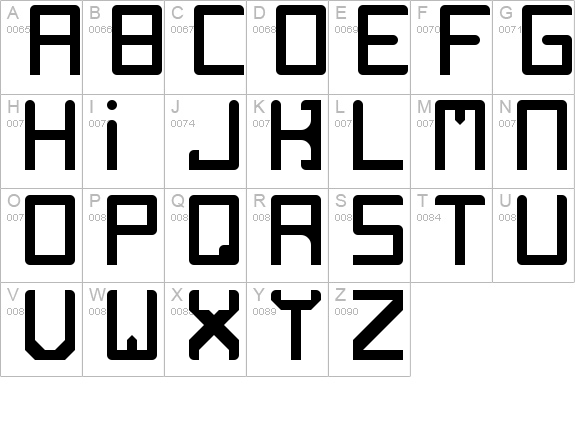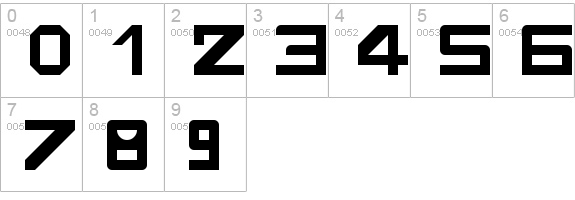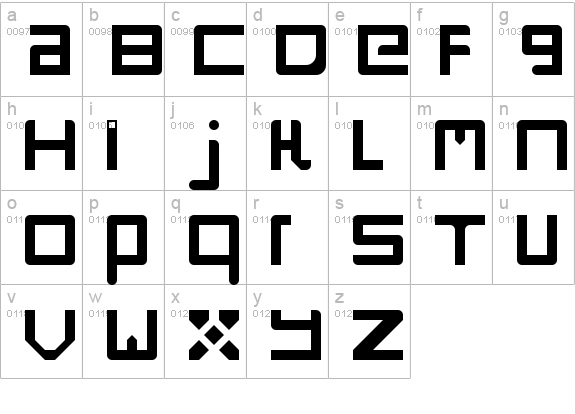
rzrarti Regular Font Details
rzrarti Regular is the standard, neutral variant in the rzrarti typeface family \xE2\x80\x94 well suited to general body text, paragraphs, and standard typographic work.
The rzrarti Regular font is a versatile and modern typeface that effortlessly combines elegance with readability. Its clean lines and balanced proportions make it suitable for a wide range of design projects, from branding to editorial layouts. This font is perfect for adding a touch of sophistication to your creations while maintaining clarity and legibility. Best of all, rzrarti Regular is available for free download at FontsMarket.com. Whether you're a professional designer looking to expand your font collection or a hobbyist seeking a high-quality typeface, this font offers a cost-effective solution without compromising on style or quality. Download rzrarti Regular today and elevate your designs with its timeless appeal.